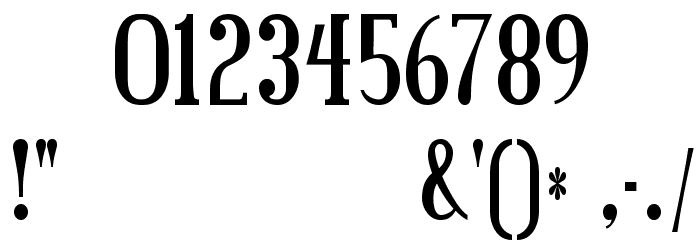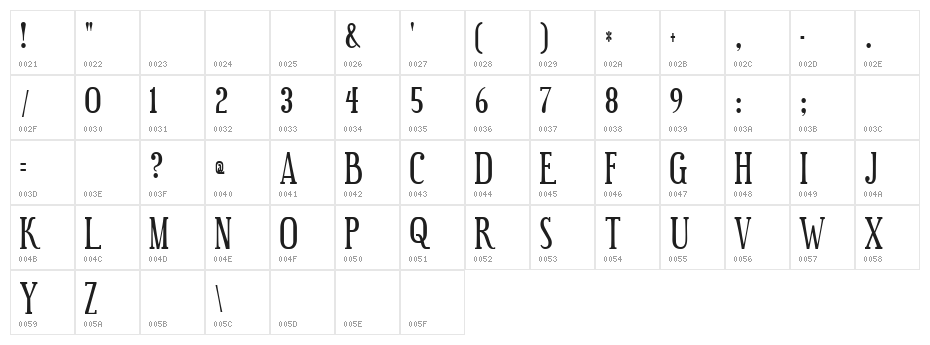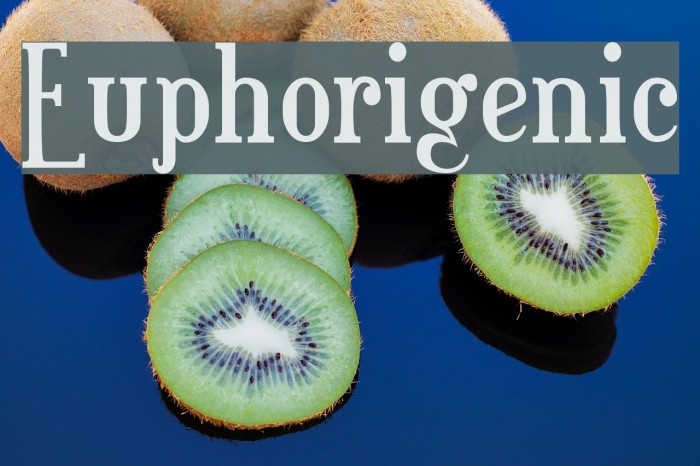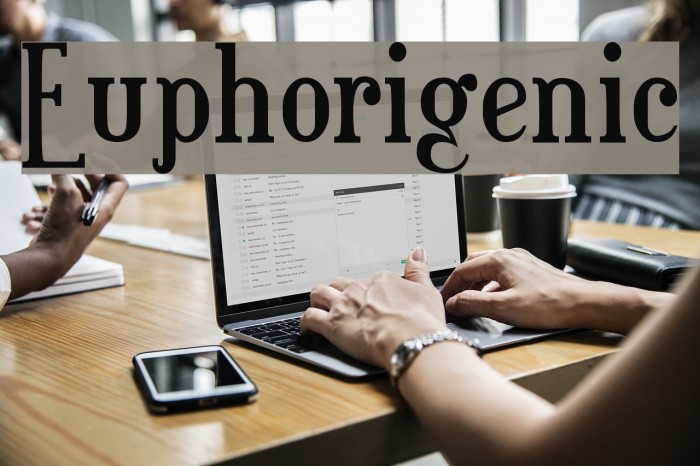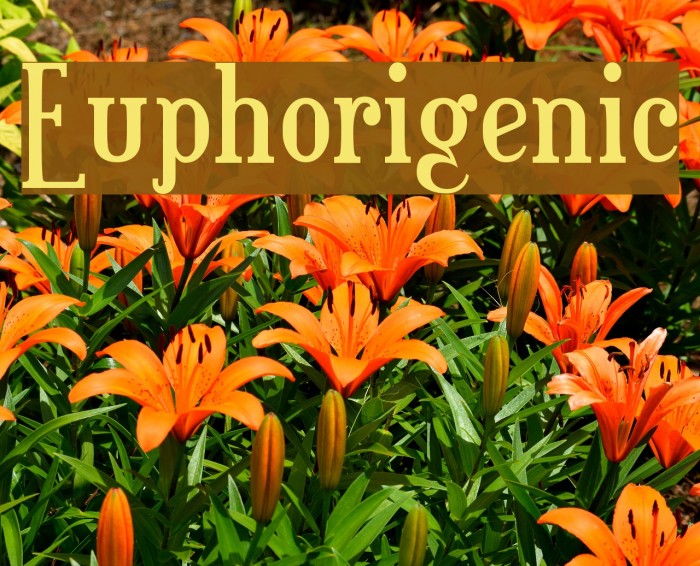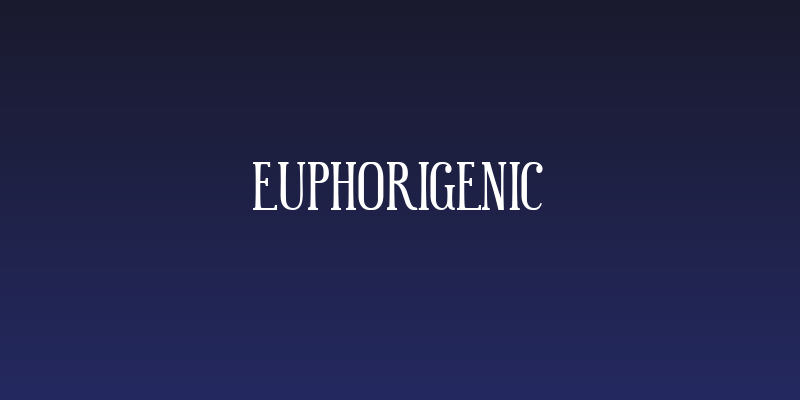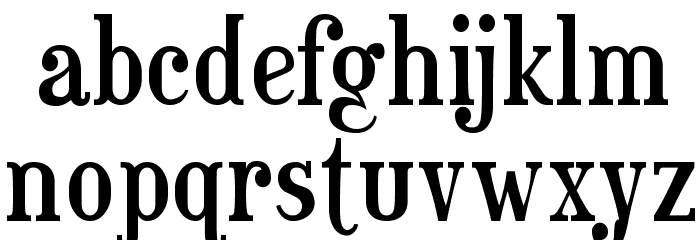
Euphorigenic Font
Euphorigenic Description
This font features a classic serif style with elegant, elongated strokes and a high contrast between thick and thin lines. The uppercase letters are tall and commanding, while the lowercase letters maintain a balanced and readable form. The numerals are distinct and clear, making them suitable for various applications. The special characters are well-integrated, maintaining the overall aesthetic of the font. Its refined appearance makes it ideal for projects that require a touch of sophistication and tradition.
| Proposed Projects | Ideal for book covers, formal invitations, editorial layouts, and branding materials that require a traditional and sophisticated look. |